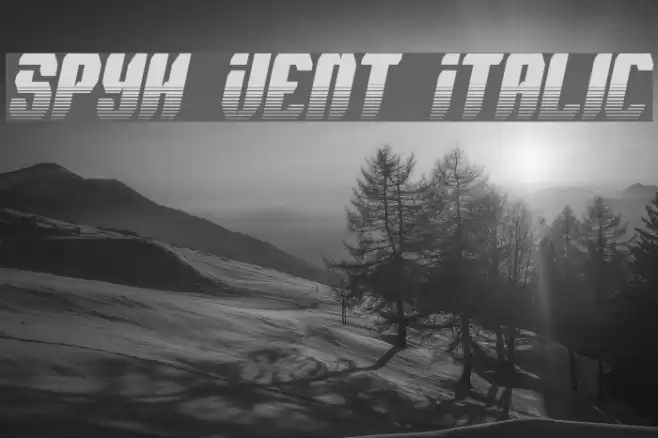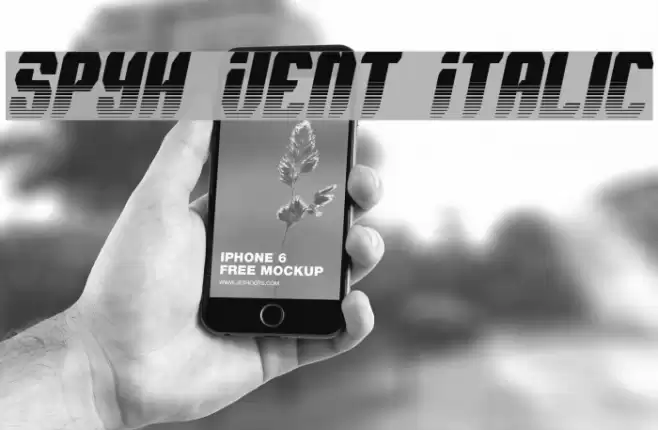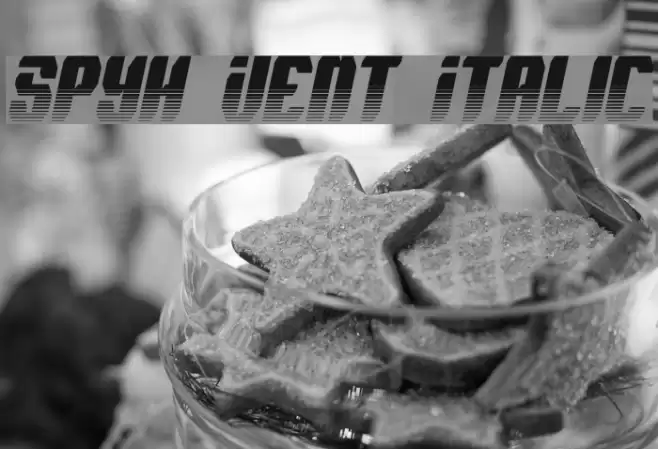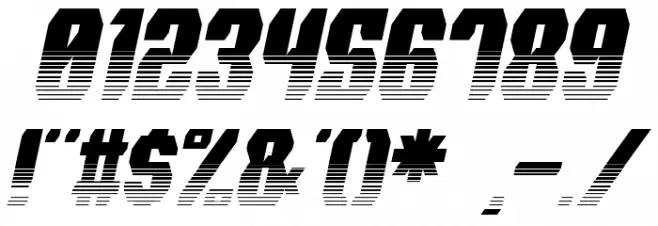
Spyh Vent Italic Font
Spyh Vent Italic Description
This font features a bold, futuristic design with a distinct italic slant. Each character is constructed with horizontal lines that create a dynamic, fast-paced visual effect, reminiscent of motion or speed. The uppercase and lowercase letters maintain a consistent style, with sharp angles and geometric shapes. The numerals and special characters follow the same design principles, ensuring uniformity across all elements. This font's unique style makes it stand out, offering a modern and edgy aesthetic.
A bold, italic, futuristic font with dynamic horizontal lines from Uncategorized fonts.
- Proposed Projects: Ideal for sci-fi themed projects, video game titles, tech company branding, or any design requiring a modern, high-energy look.
- Overall Style: Futuristic, Dynamic